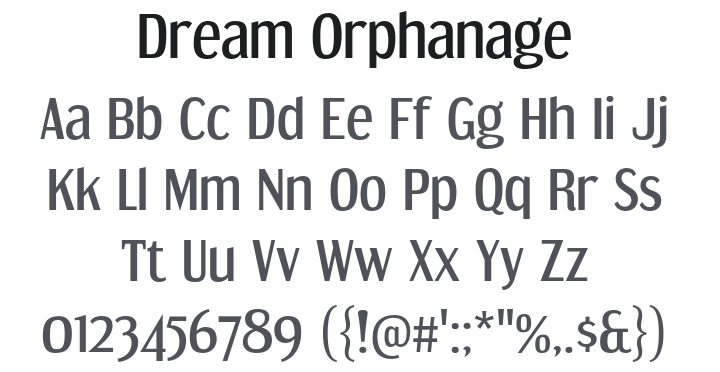
Dream Orphanage Font
About Dream Orphanage
Dream Orphanage is a humanist serif-sans hybrid that balances warmth and precision. Its tall x-height and open forms ensure clarity in compact layouts, while gentle contrast gives it character without distraction. The result is a typeface that feels friendly yet professional... equally suited to branding, packaging, and interface design. Clean, approachable, and modern, Dream Orphanage communicates with ease and quiet confidence.